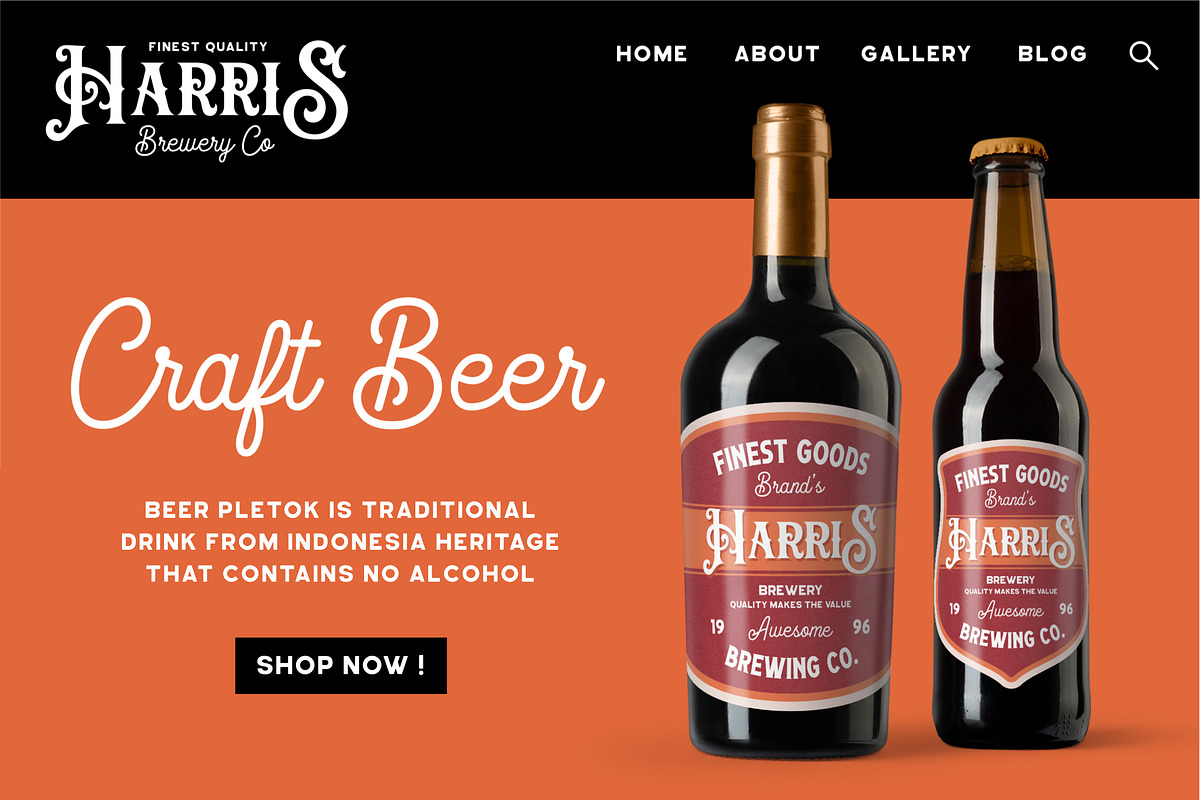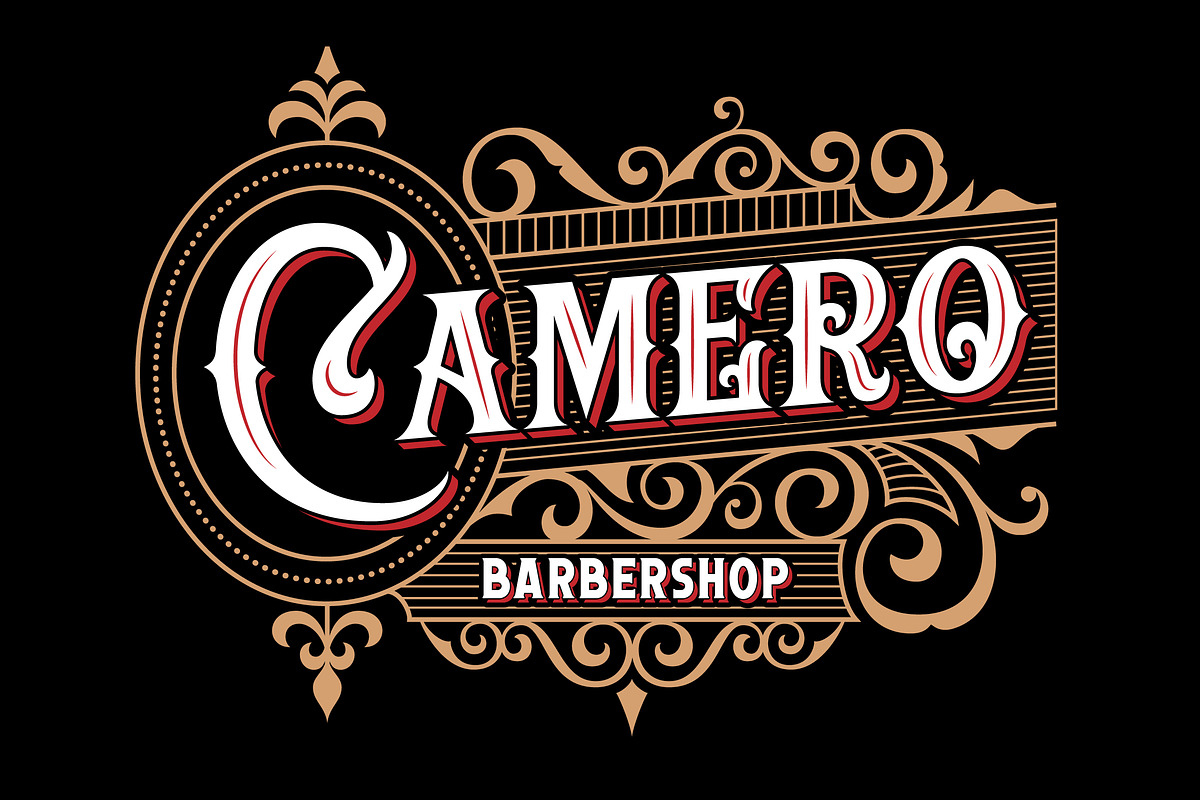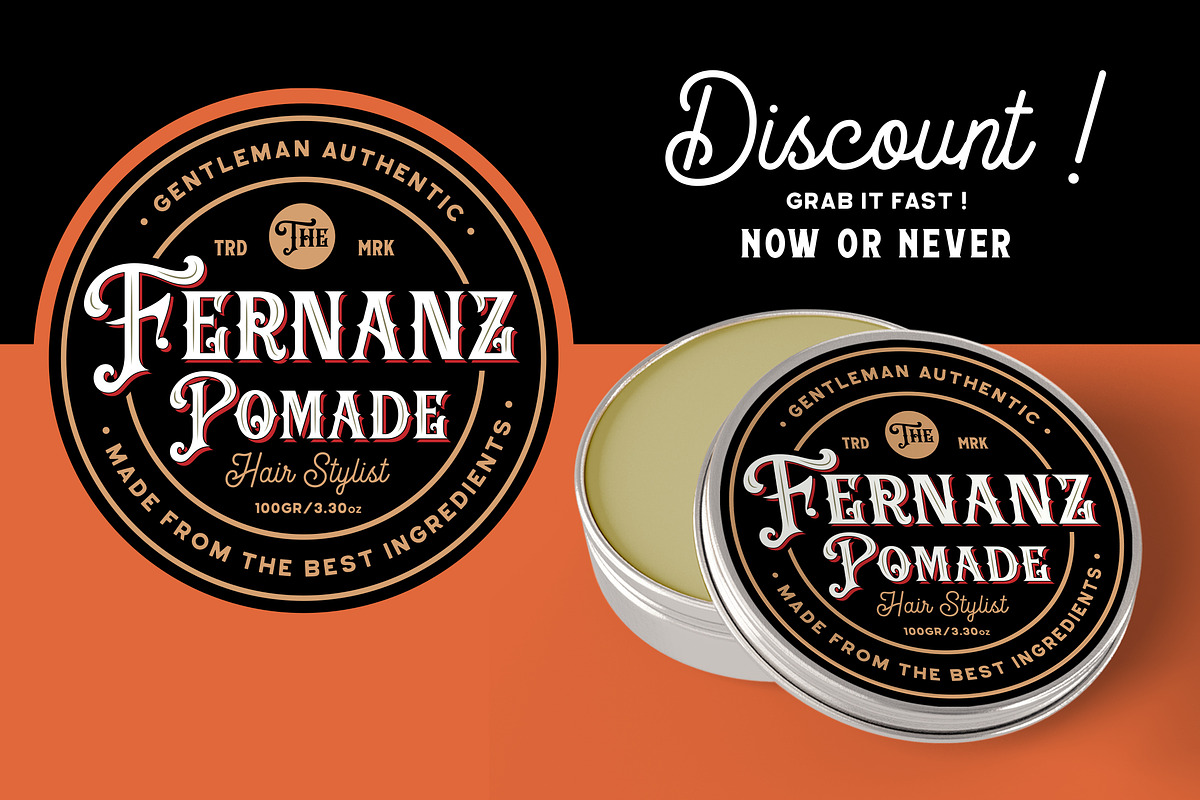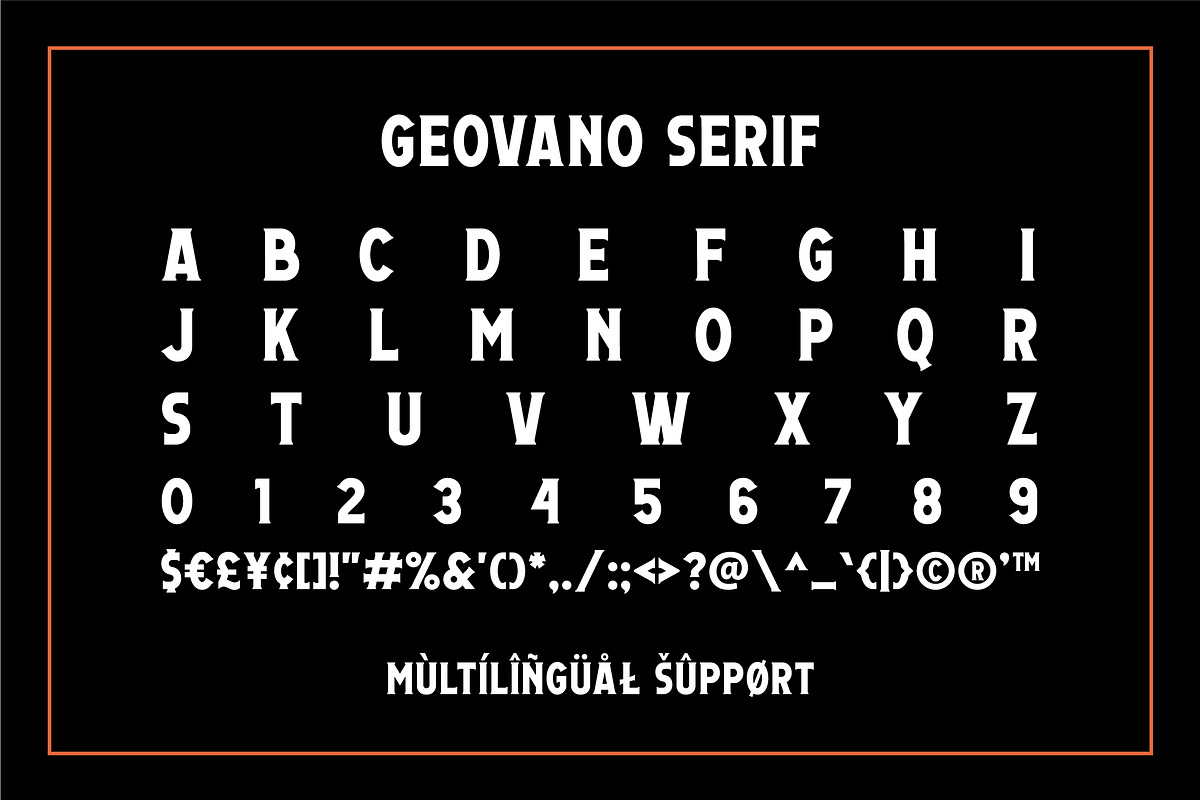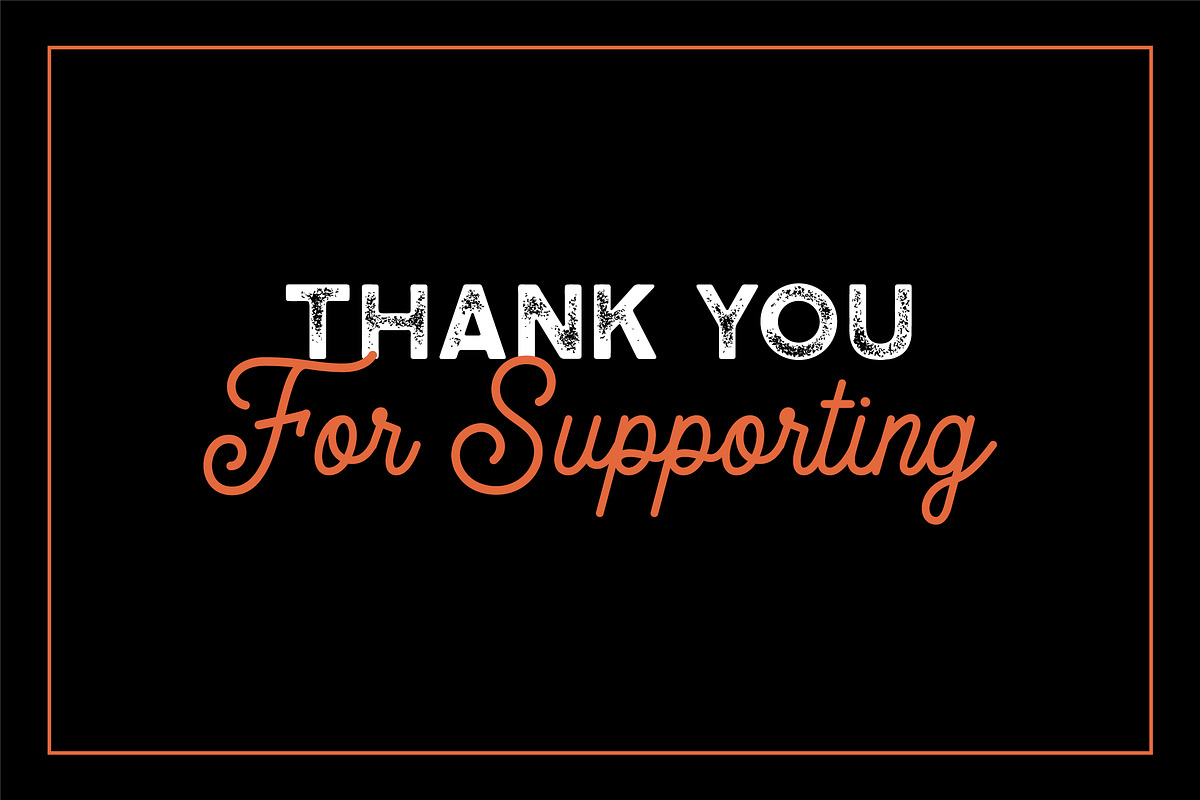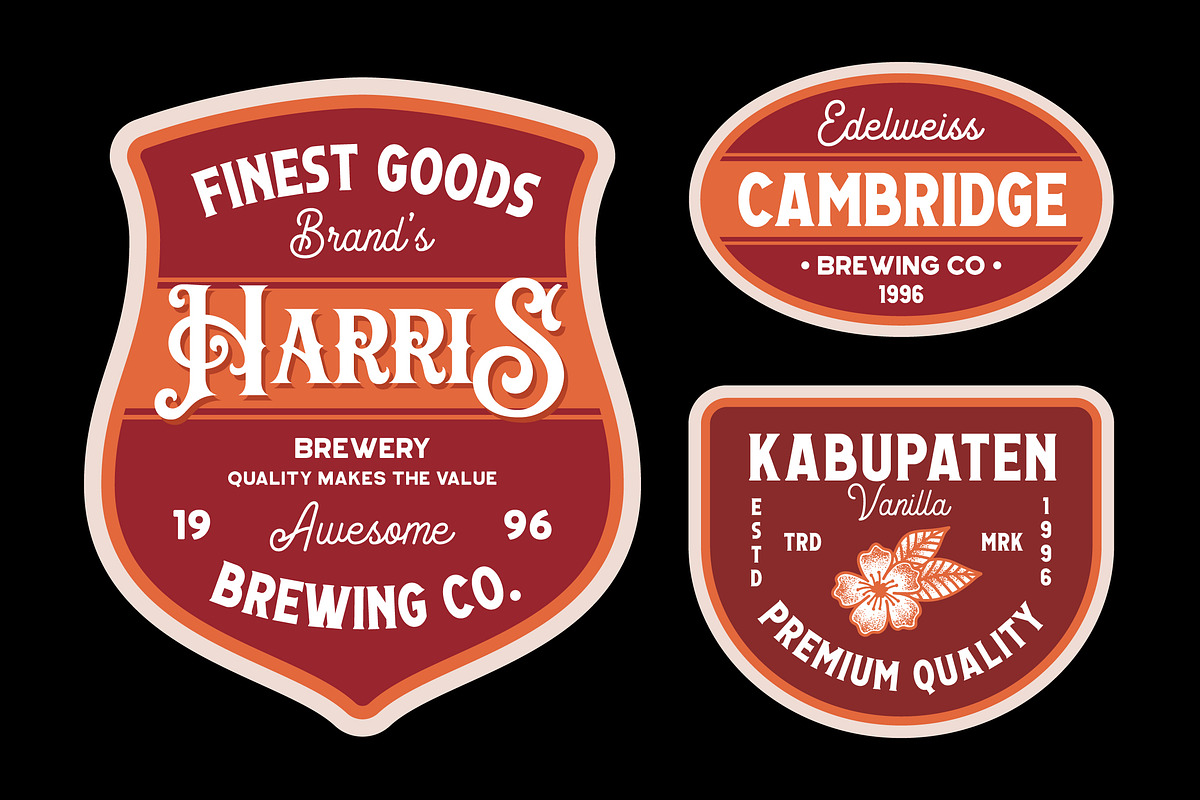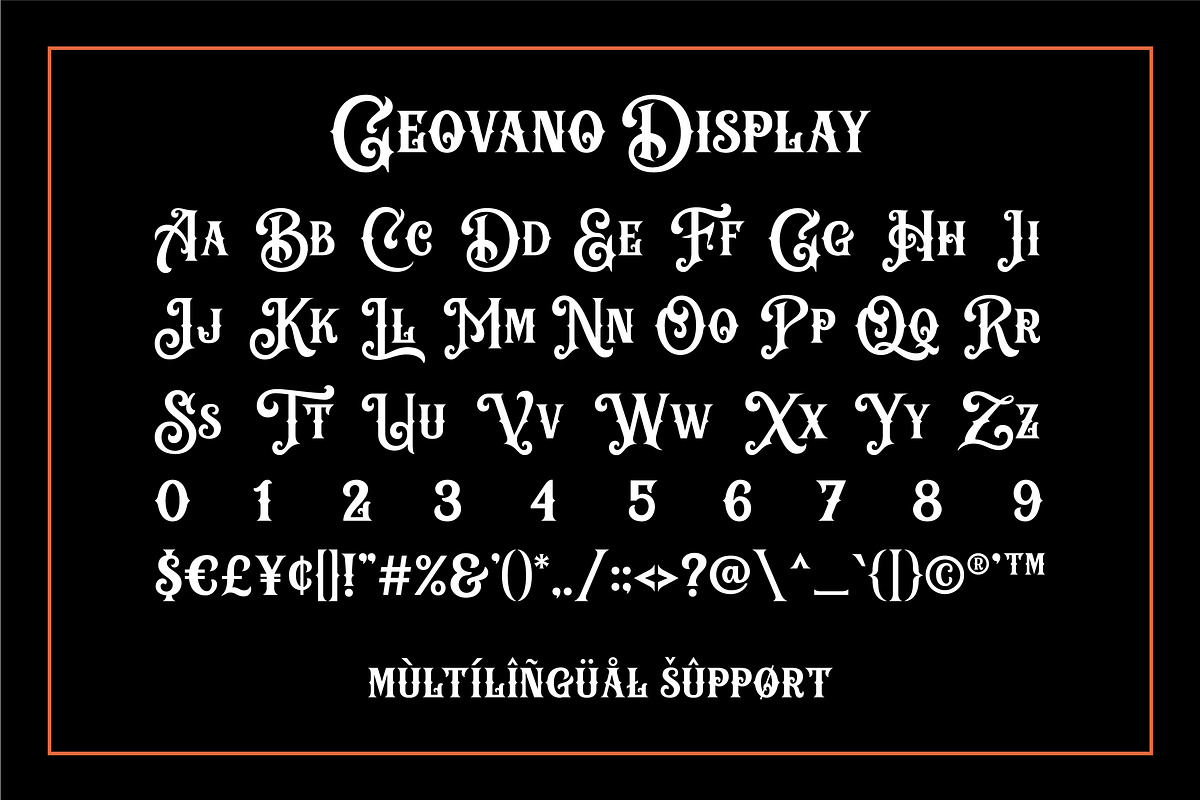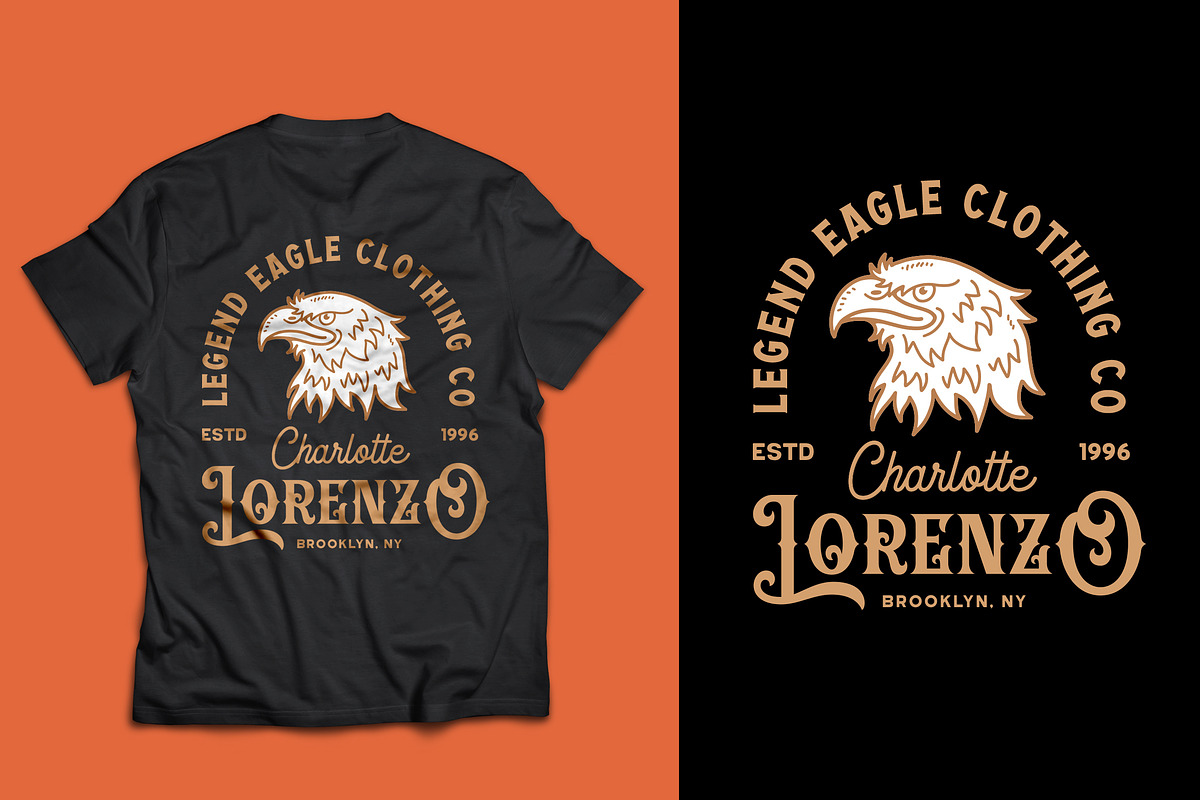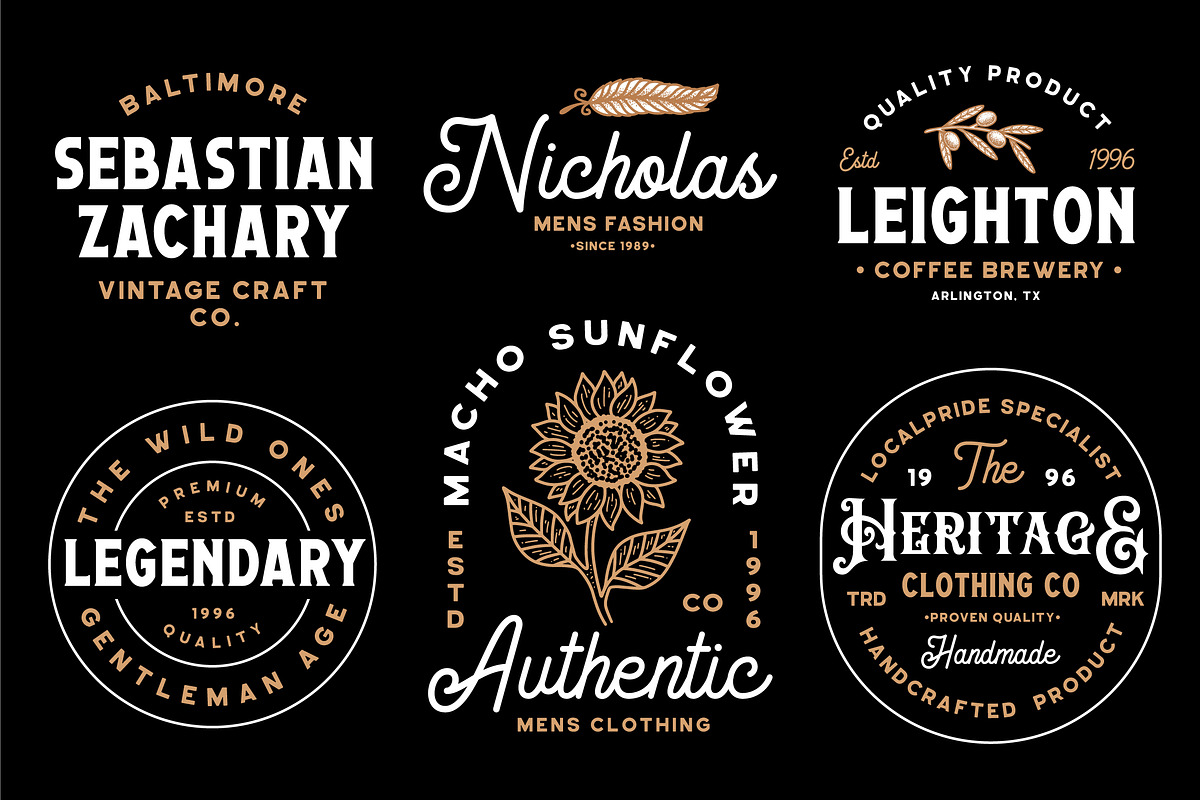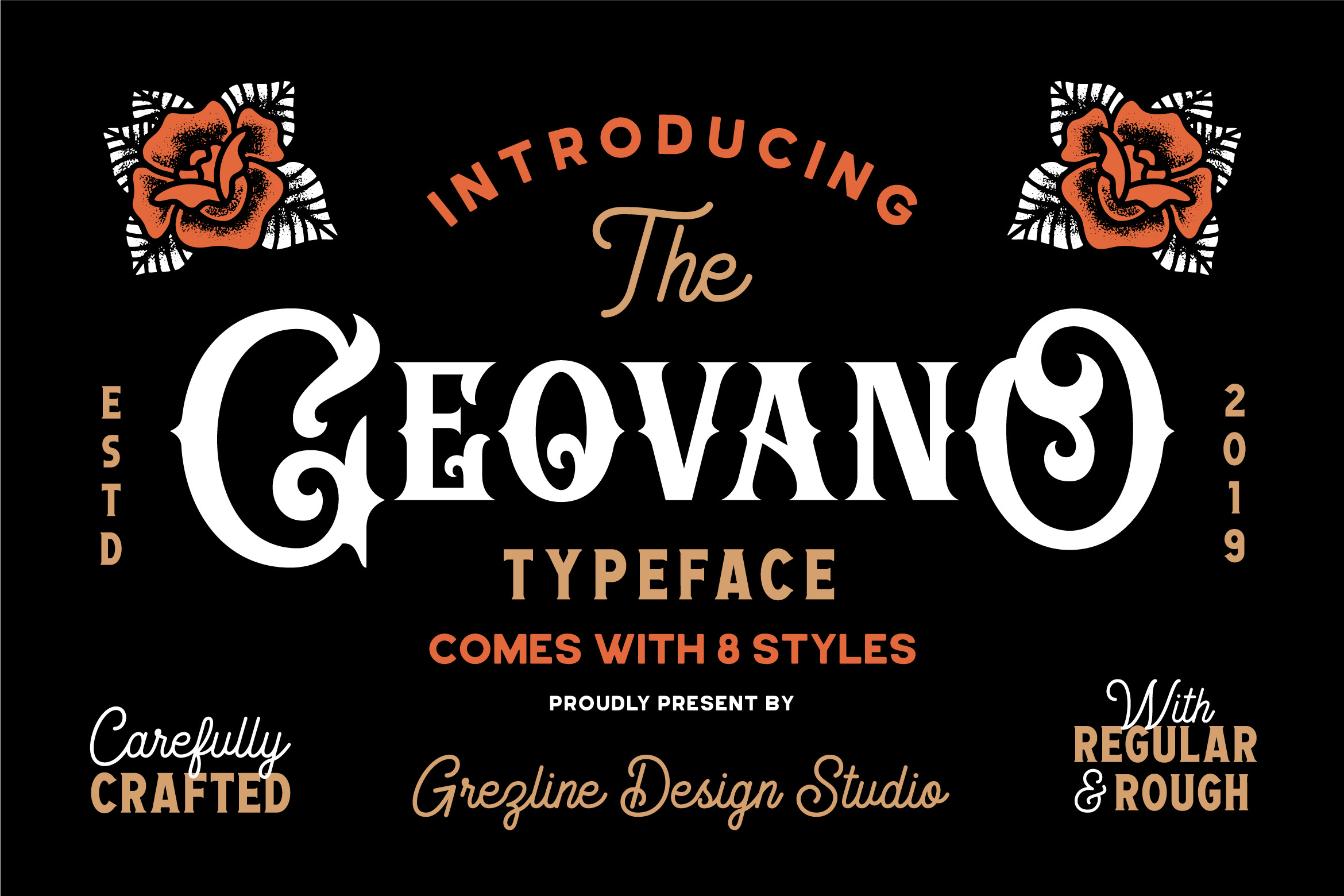
Geovano - Vintage Font Family
Geovano is a font family which has 4 styles; Display, Script, Serif and Sans Serif. It is heavily inspired by all kind of vintage and oldschool design. Geovano is a font that you can use to make a vintage logo for branding, typography design, magazine or book cover, website header, product packaging, t-shirt design, label poster and many more.
- 4 Styles with rough version
- Bonus Illustrations and Badge Design
- Multilingual Language